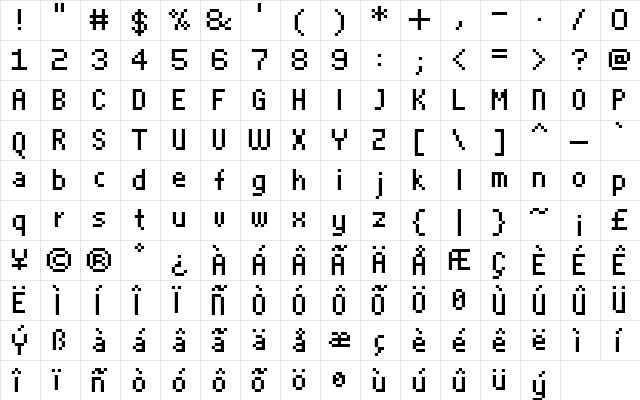
FFF Aquarius Regular
Design Context for FFF Aquarius Typeface
FFF Aquarius offers clean, dependable letterforms without strong stylistic allegiance, making it a practical choice for designers who need flexibility.